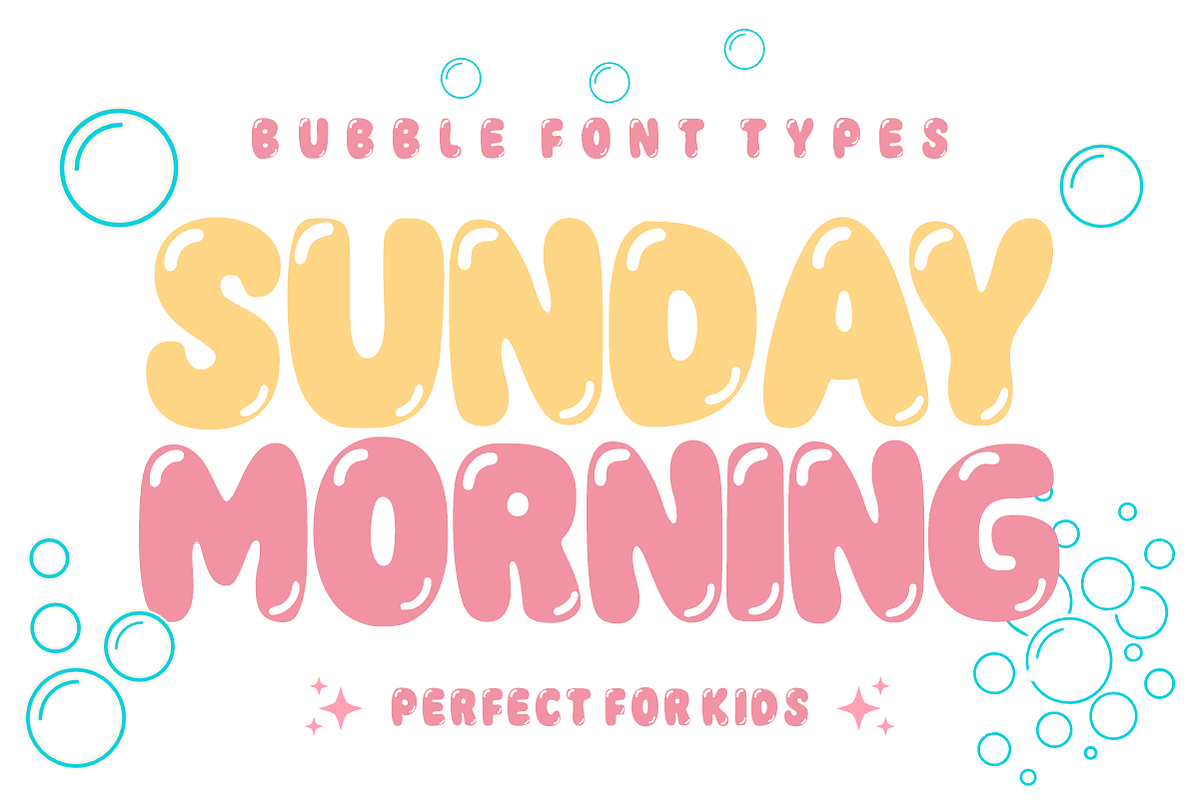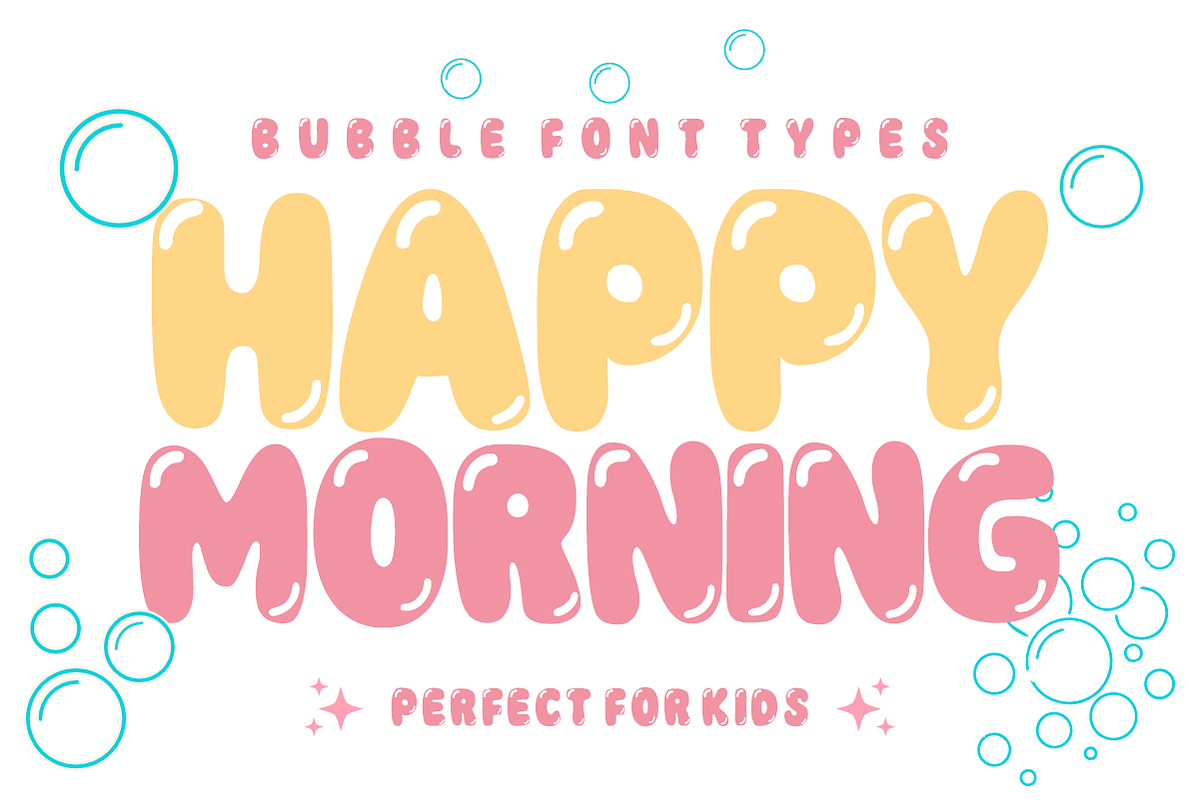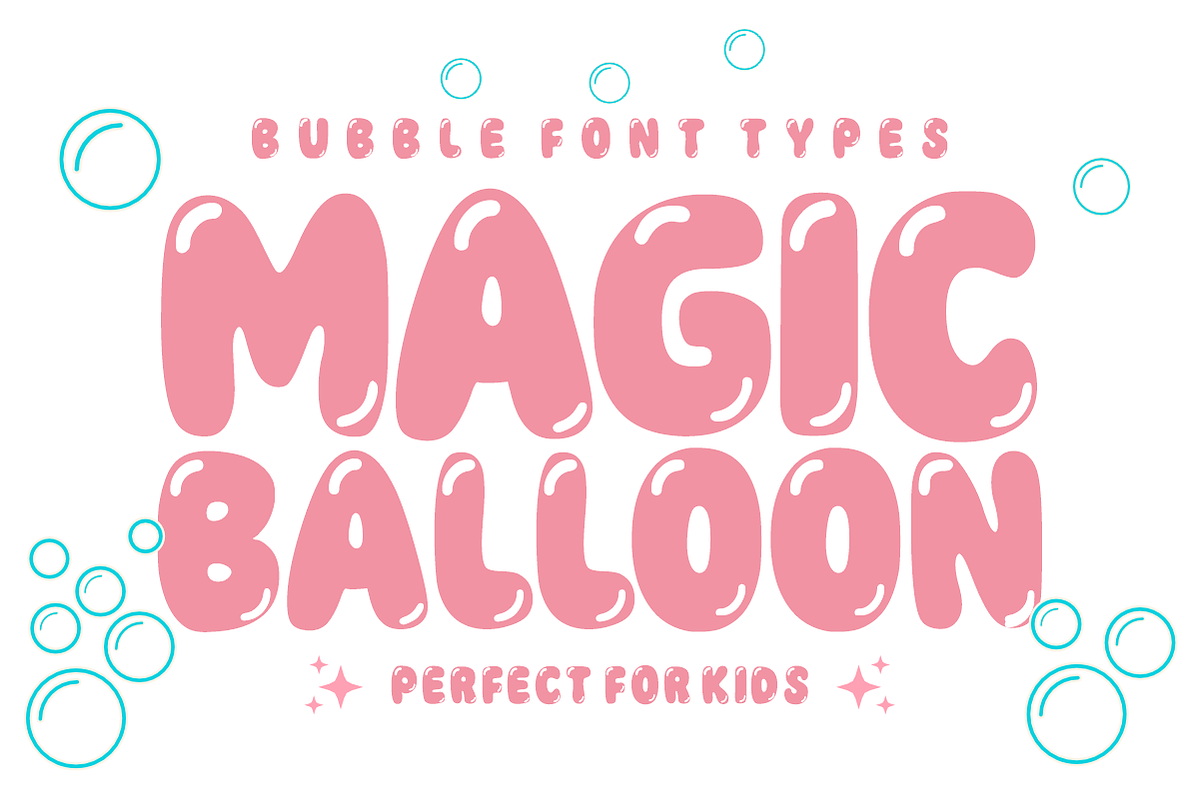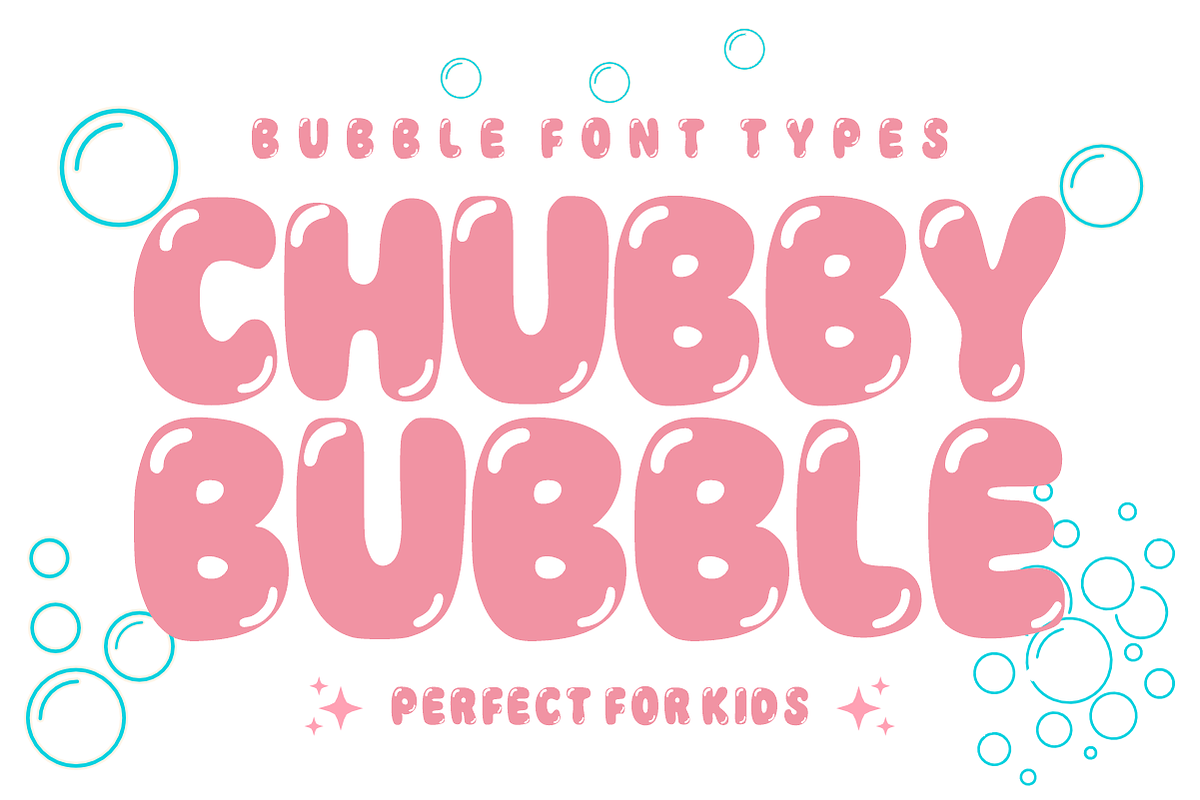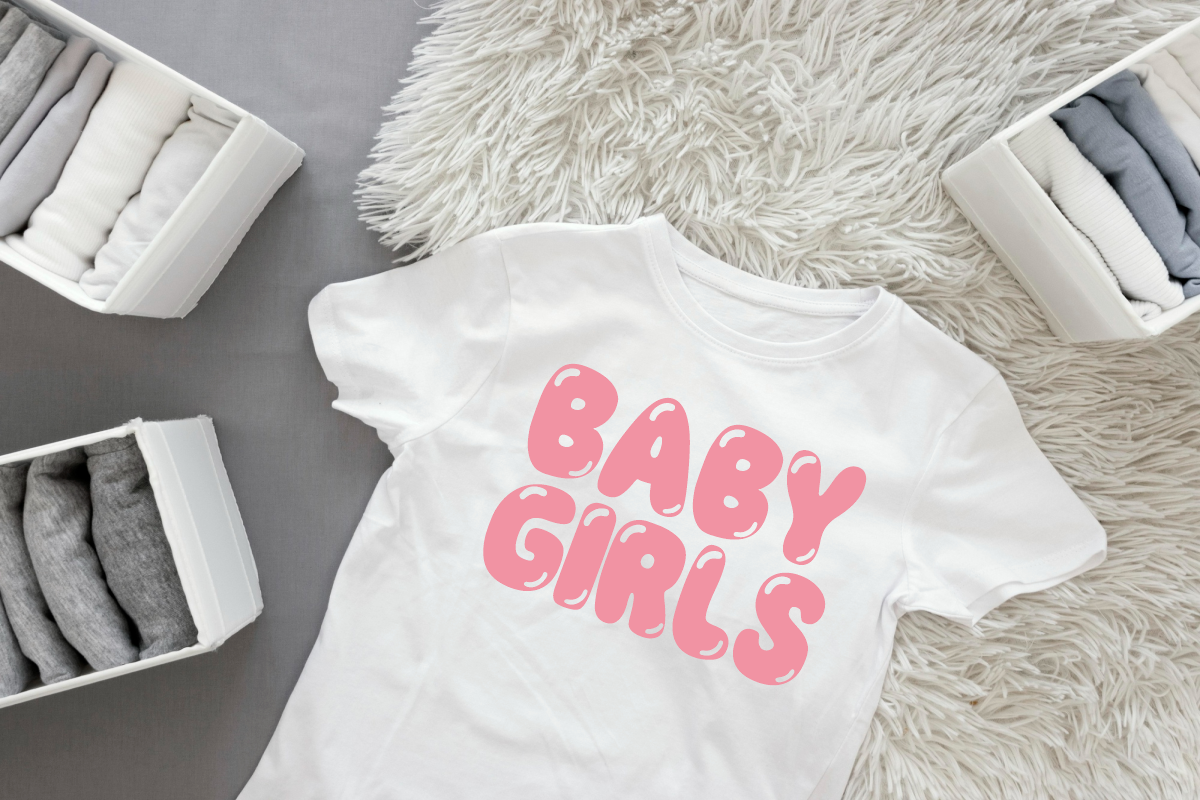
Magic Balloon - Cute Bubble Font
Magic Balloon is a cute, glossy display font featuring bouncy, inflated balloon letterforms accented with sweet shine highlights. Full of cheerful energy and playful charm, this bubbly cartoon font brings a magical pop to party decor, kids' apparel, and creative crafts. Every character is cleanly vectorized to guarantee high-resolution prints and smooth, effortless cutting on Cricut and Silhouette machines.